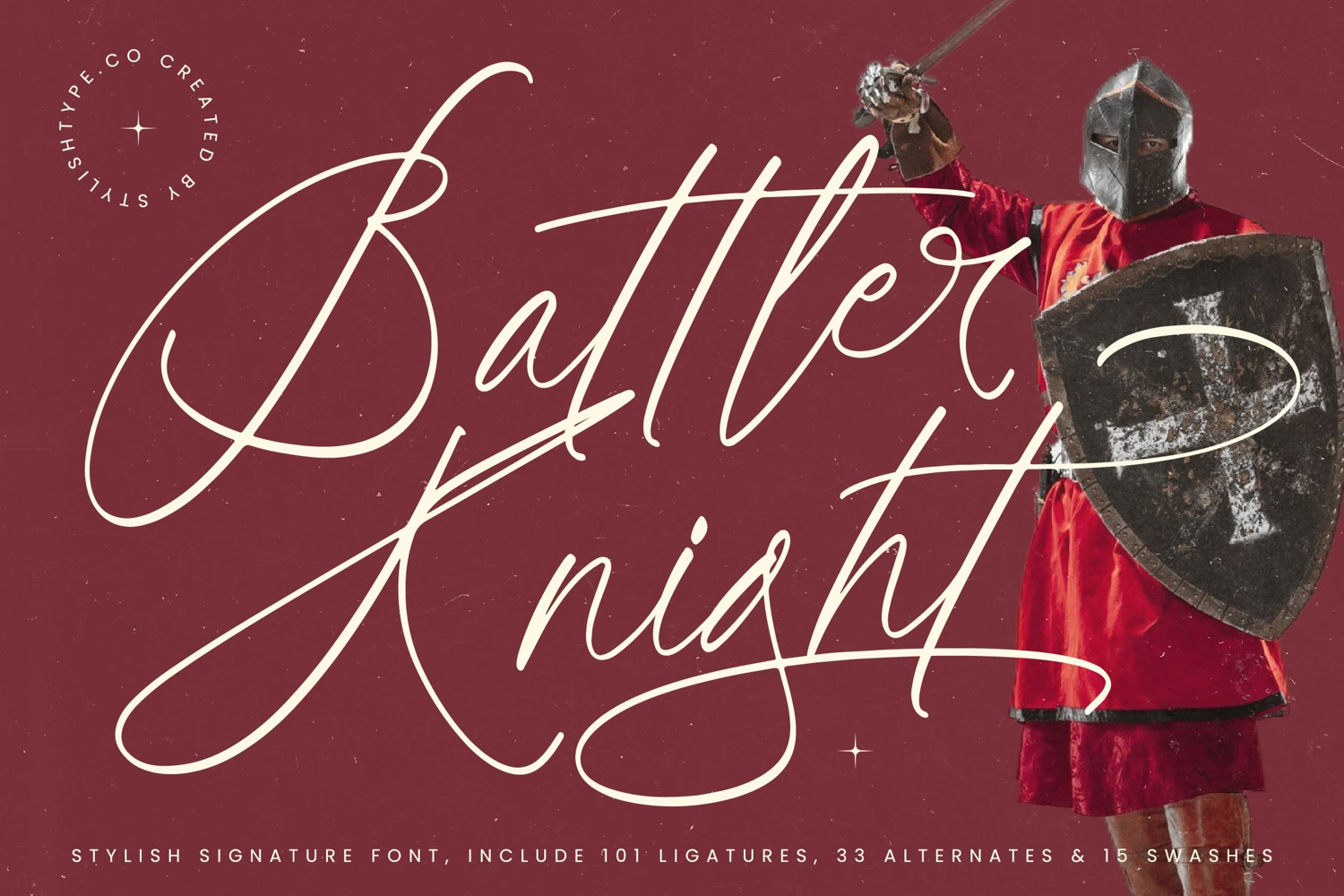
Battler Knight - Stylish Signature Font
Battler Knight
Battler Knight Italic
Battler Knight is a refined signature script inspired by classic calligraphy and medieval drama, combining elegant sweeping strokes with a bold handcrafted presence that elevates branding, editorial artwork, posters, merchandise, and high-impact visual storytelling. Featuring 101 ligatures, 33 alternates, and 15 swashes, this typeface delivers fluid motion, sharp detailing, and expressive character—ideal for designers seeking a luxurious handwritten aesthetic with a heroic, cinematic edge.